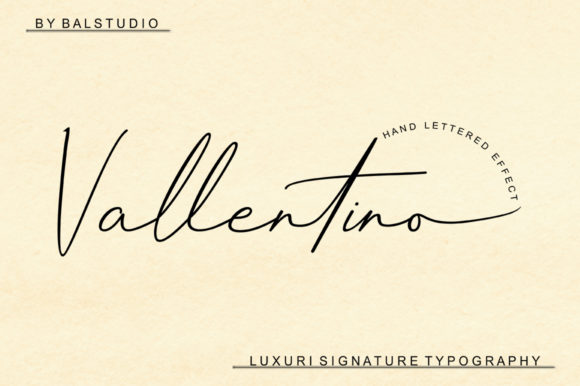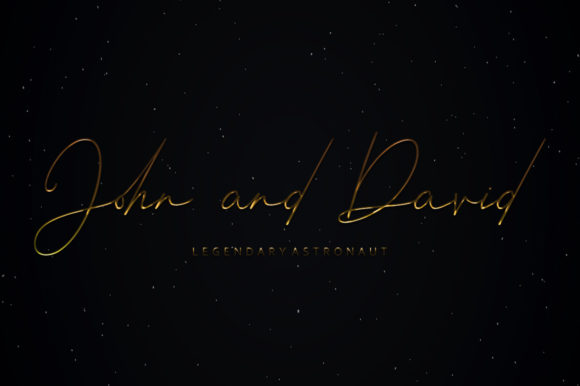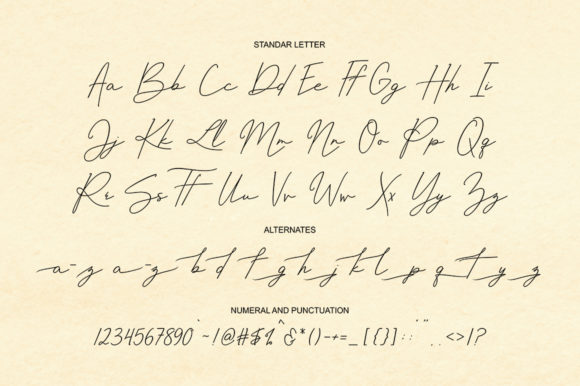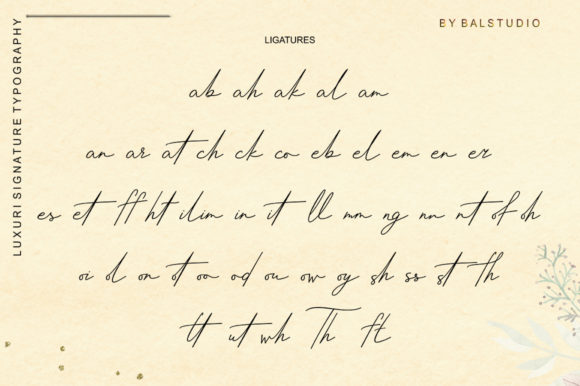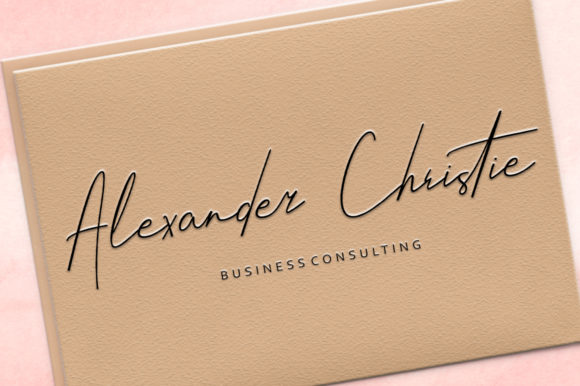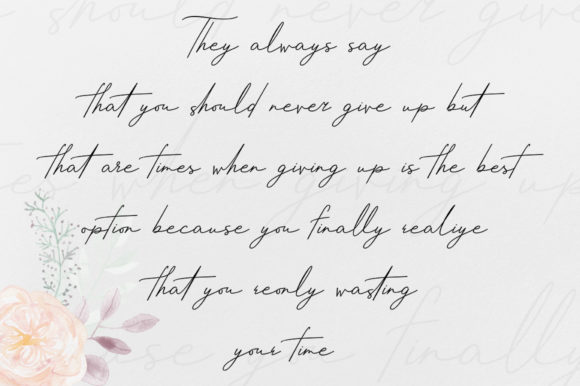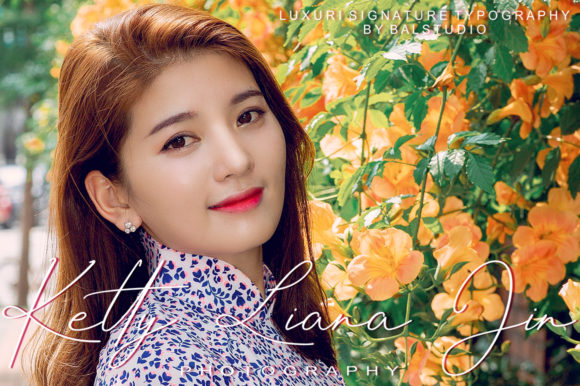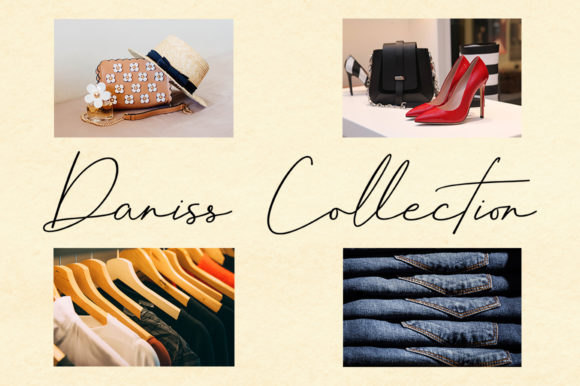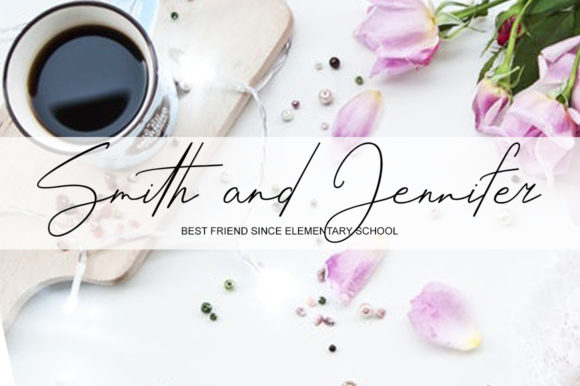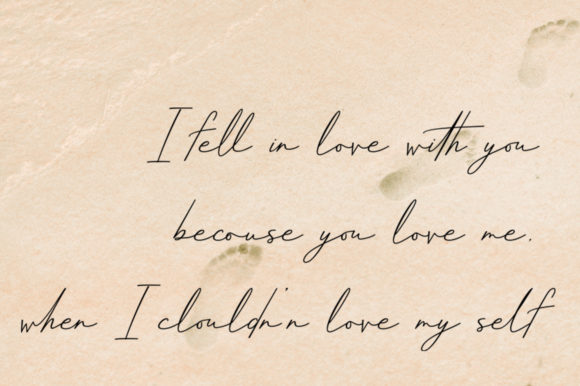
Vallentino Font
About Vallentino Font
Vallentino is a fashionable and elegant script font that will add a unique touch of beauty to your next design idea.